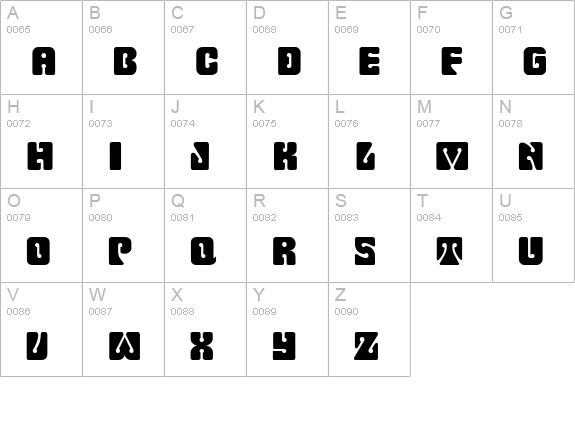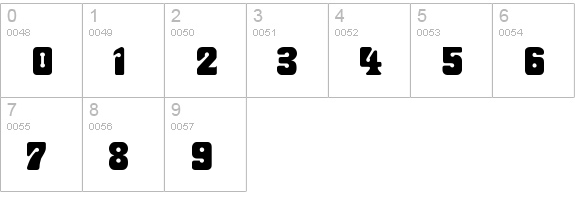
Romulan Fake Font Details
The Romulan Fake font is a captivating and futuristic typeface that exudes a sense of mystery and sophistication. Its sleek and angular design is reminiscent of the iconic Romulan aesthetic, making it the perfect choice for projects that require a touch of otherworldly elegance. This unique font is free to download at FontsMarket.com, allowing you to easily incorporate its striking style into your designs without any cost. With Romulan Fake, you can add a touch of intergalactic flair to your projects and make a bold statement that is sure to leave a lasting impression.